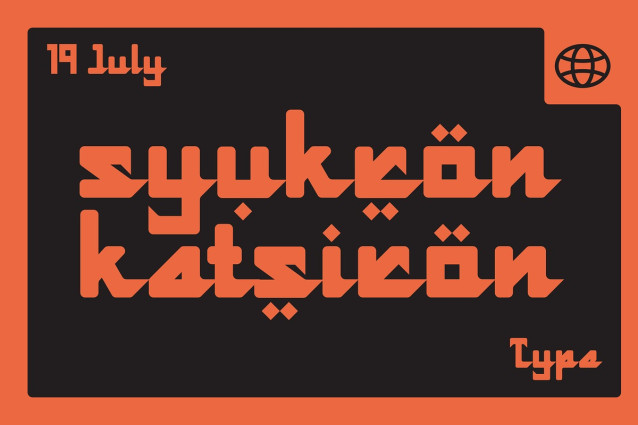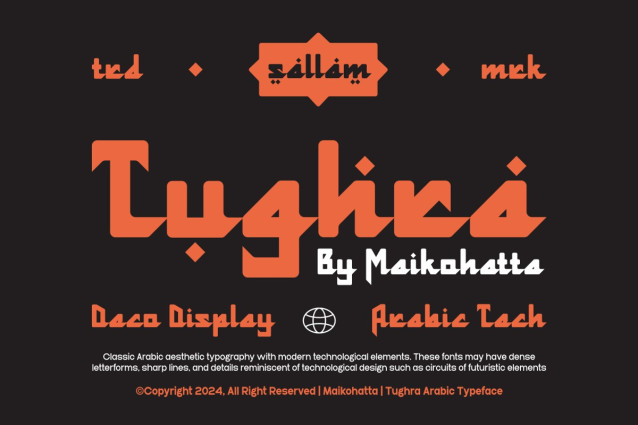
Tughra Font
Tughra Font is a bold and authentic display font. The font is suitable for any branding project like logo, Template Design, esport, and many more. outstanding in a wide range of contexts.